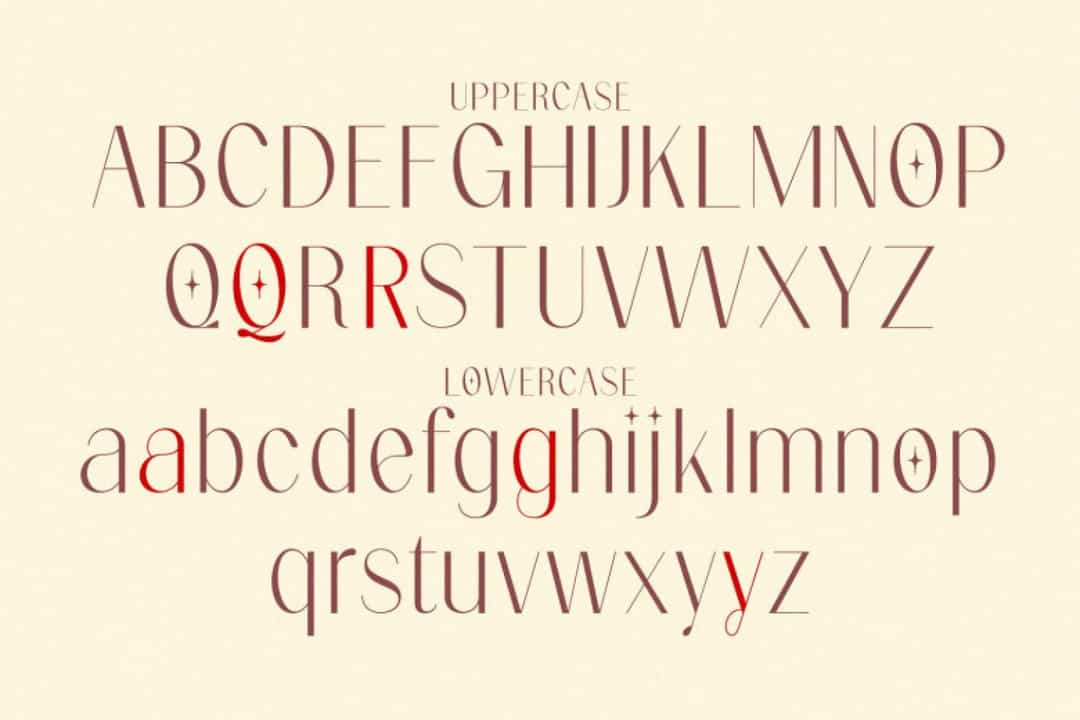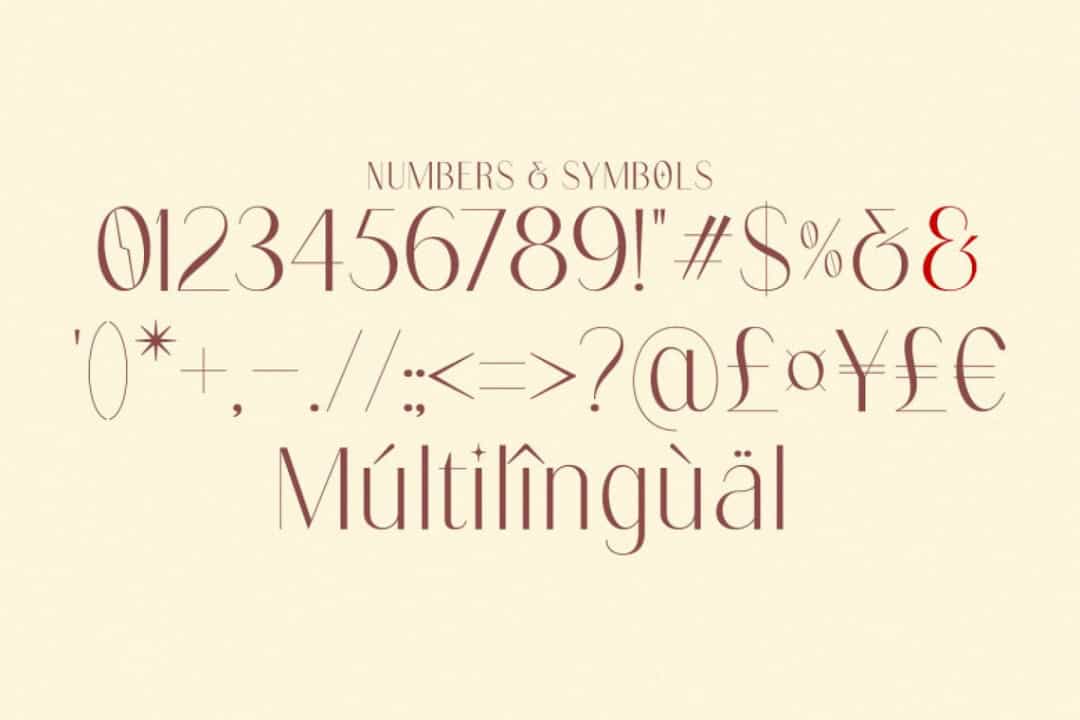
Volianchy can be described as an ingenious sans-serif font created for sophisticated users. Drawing inspiration from modern design trends yet remaining timeless over time, Volianchy stays relevant no matter its surroundings.